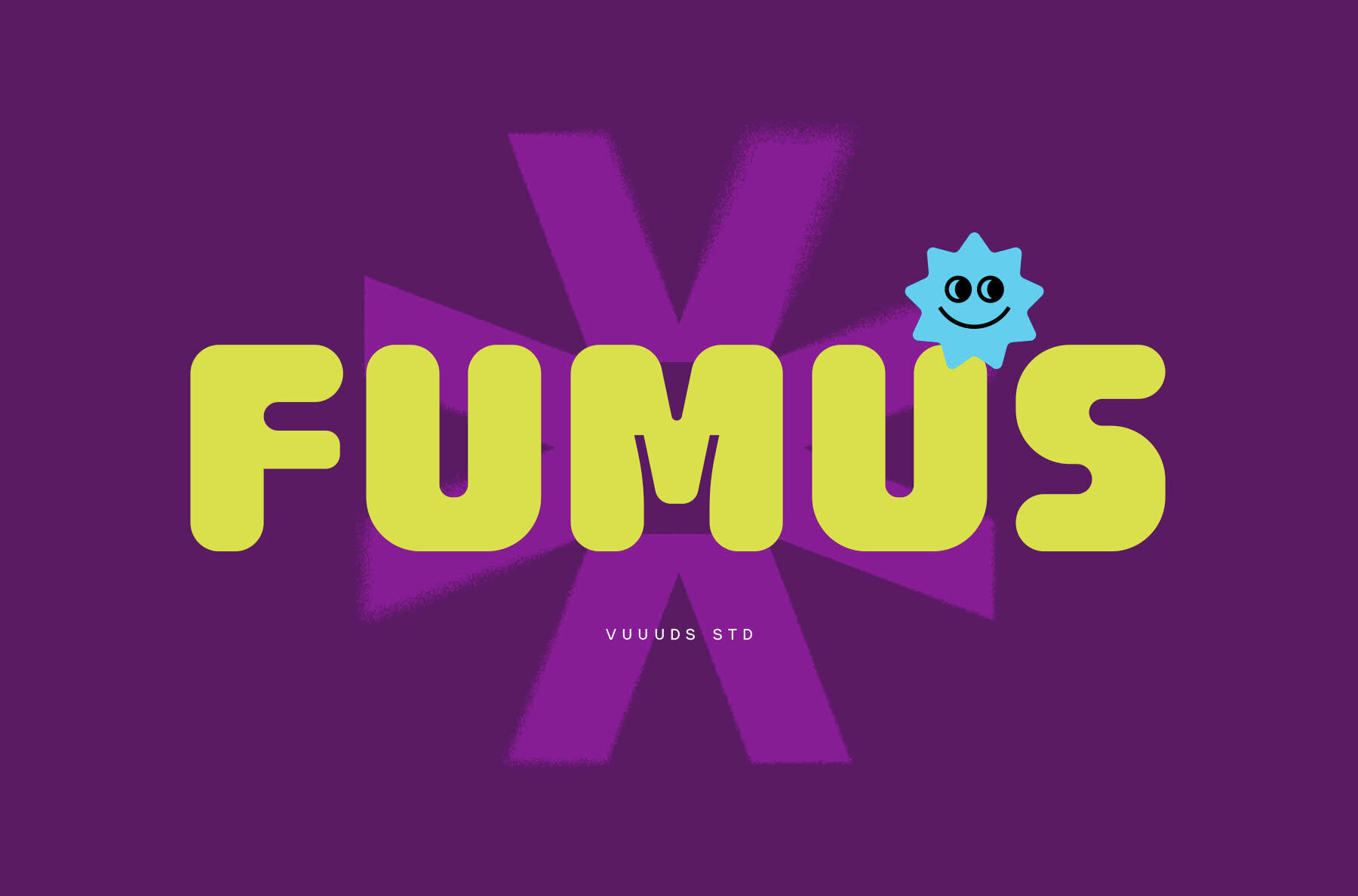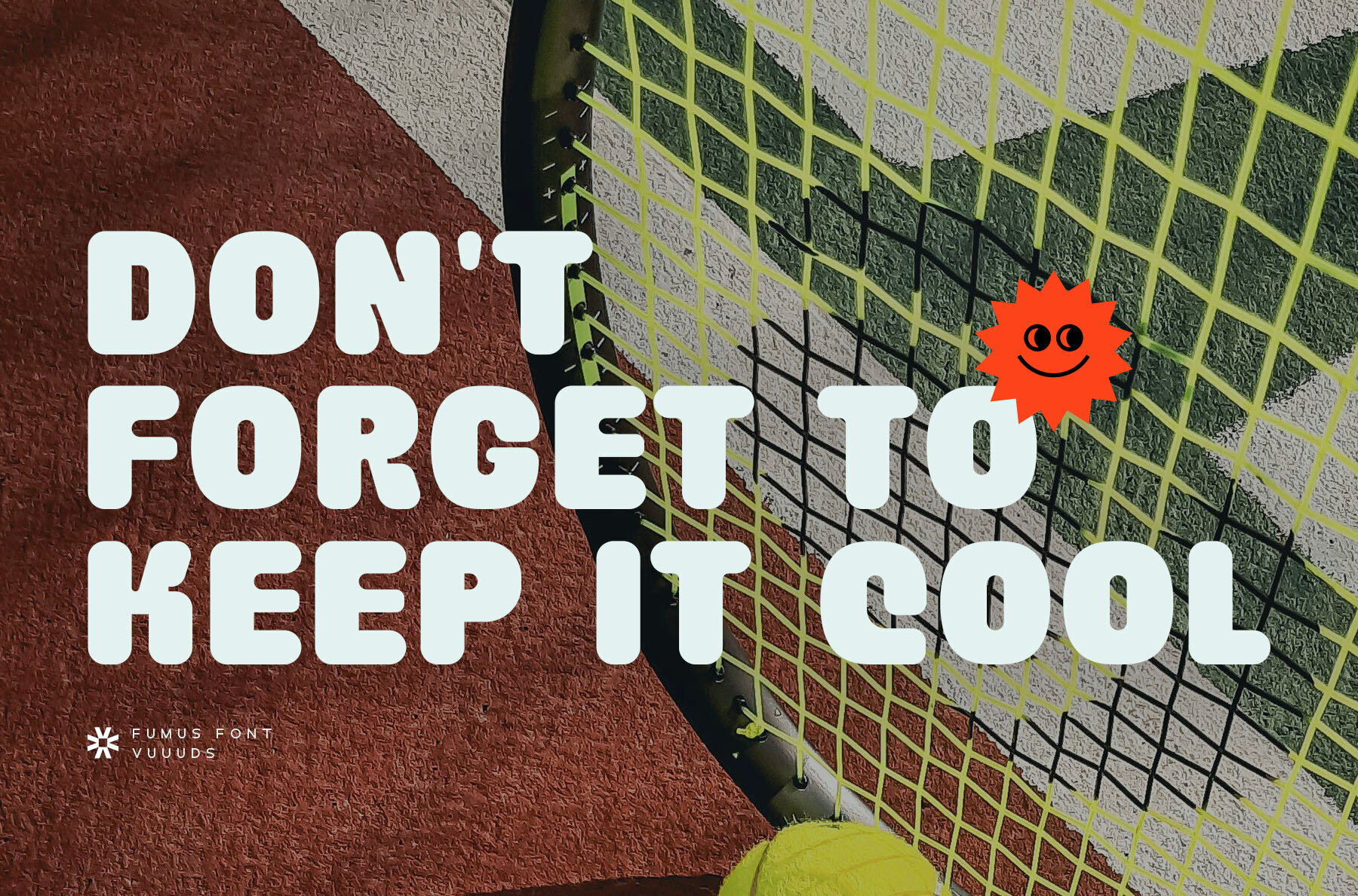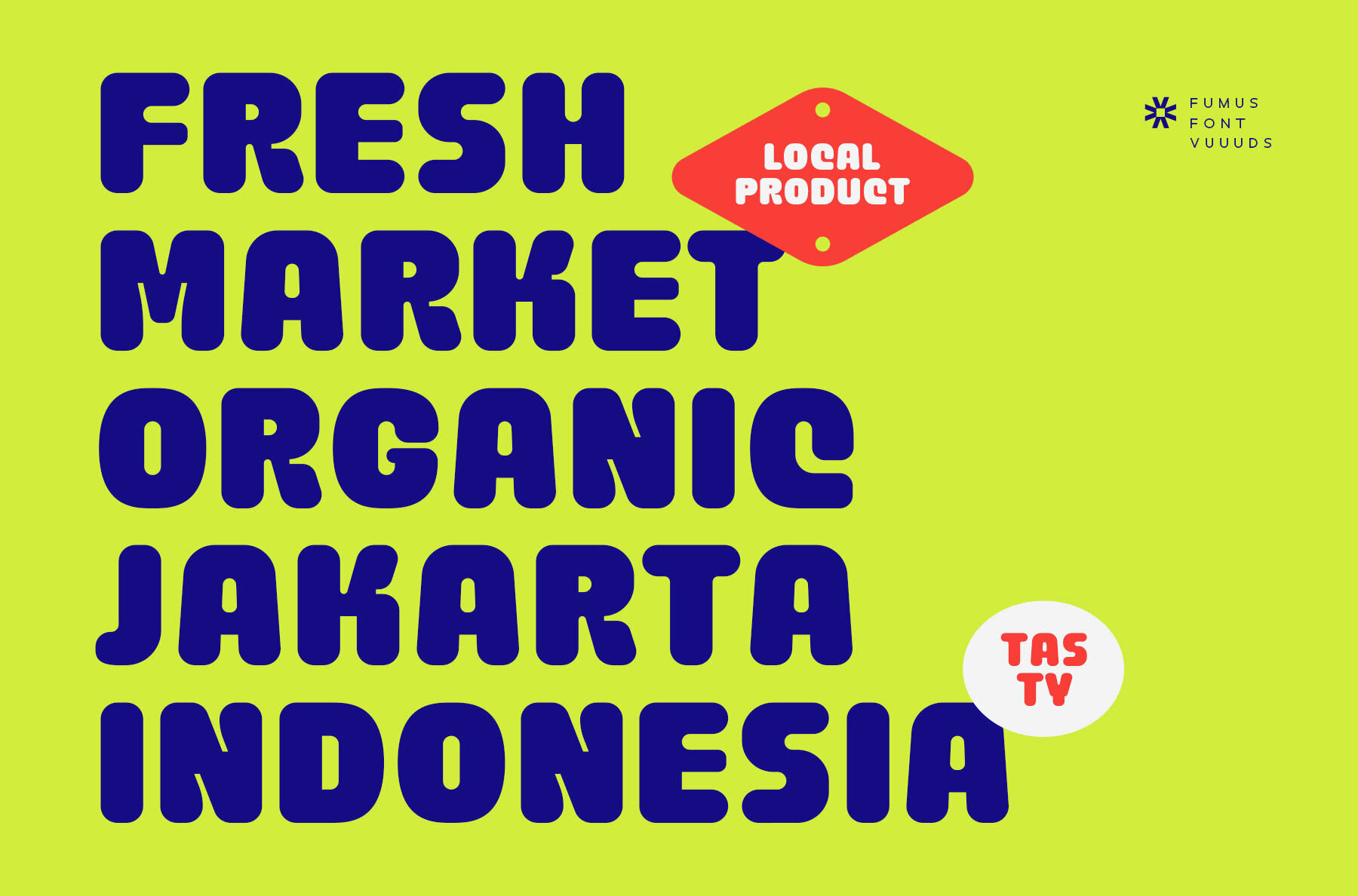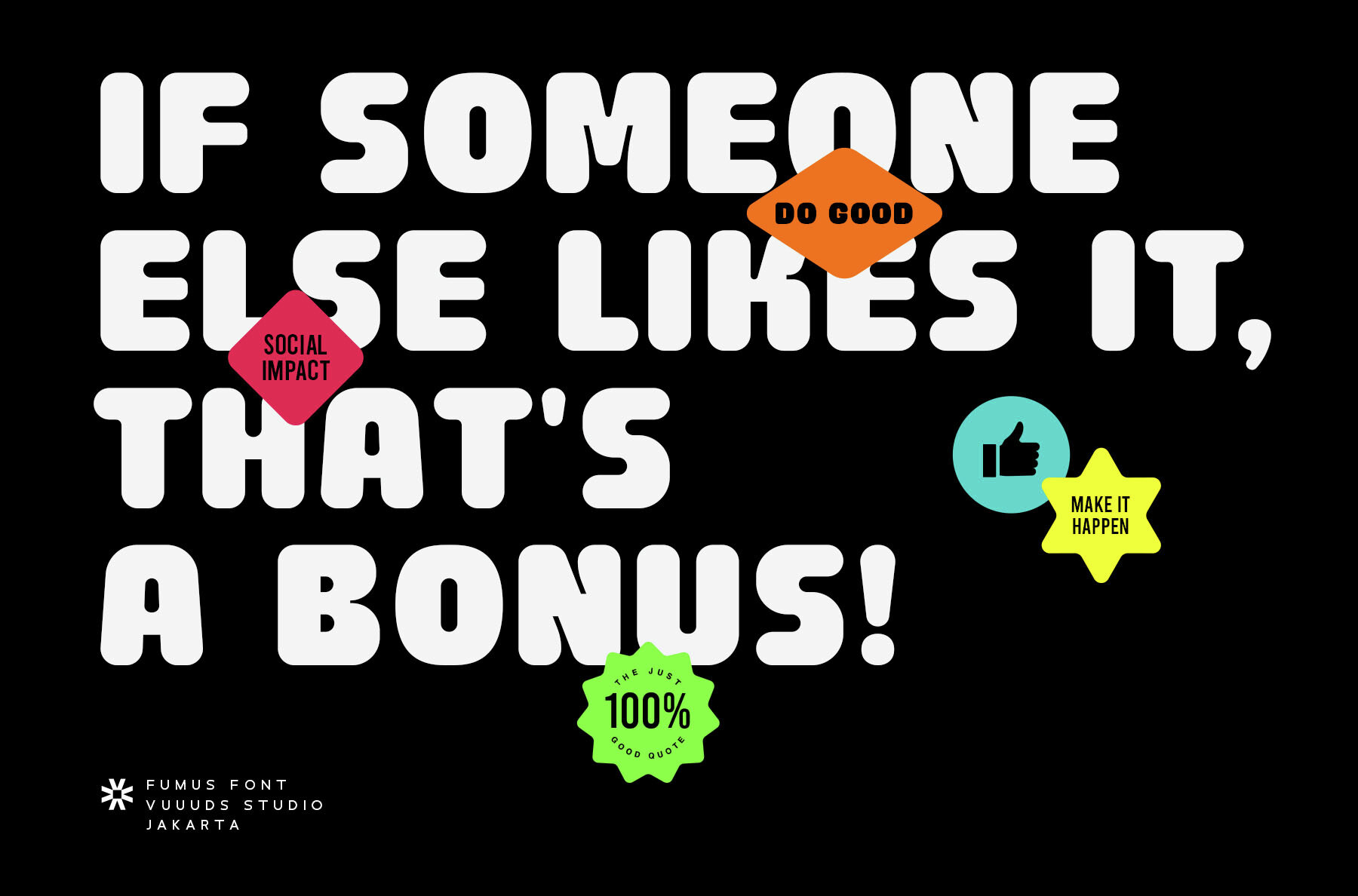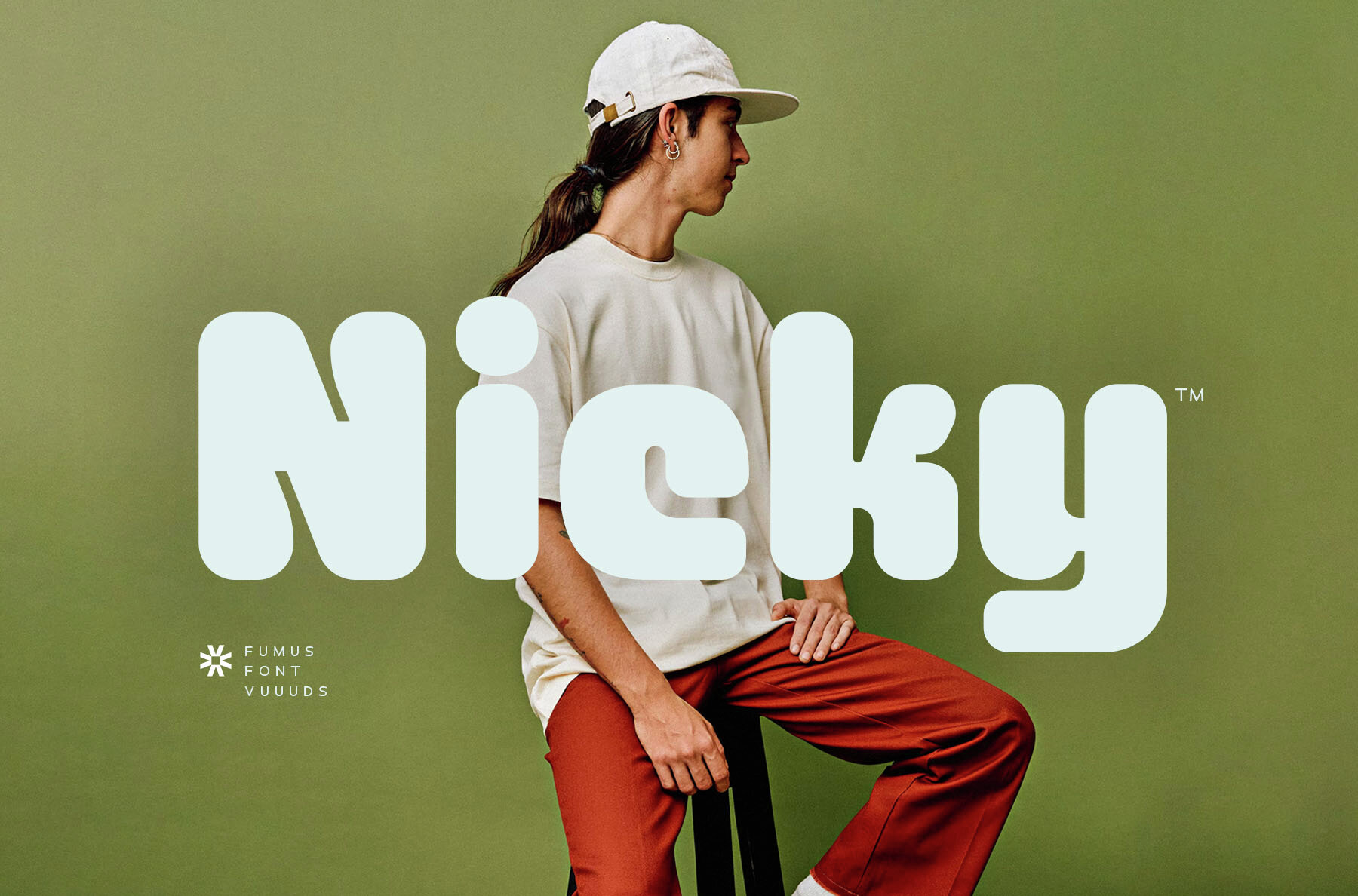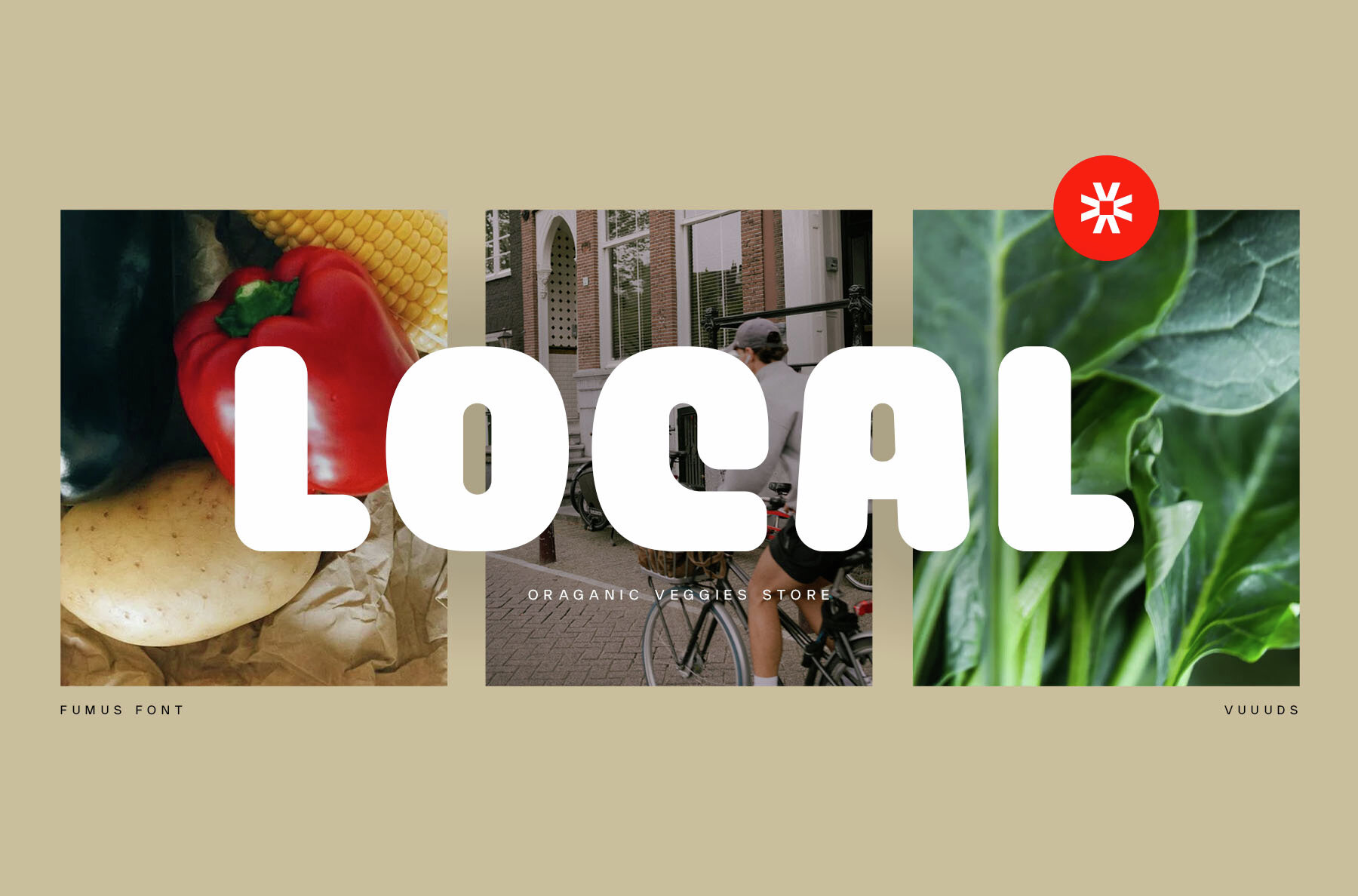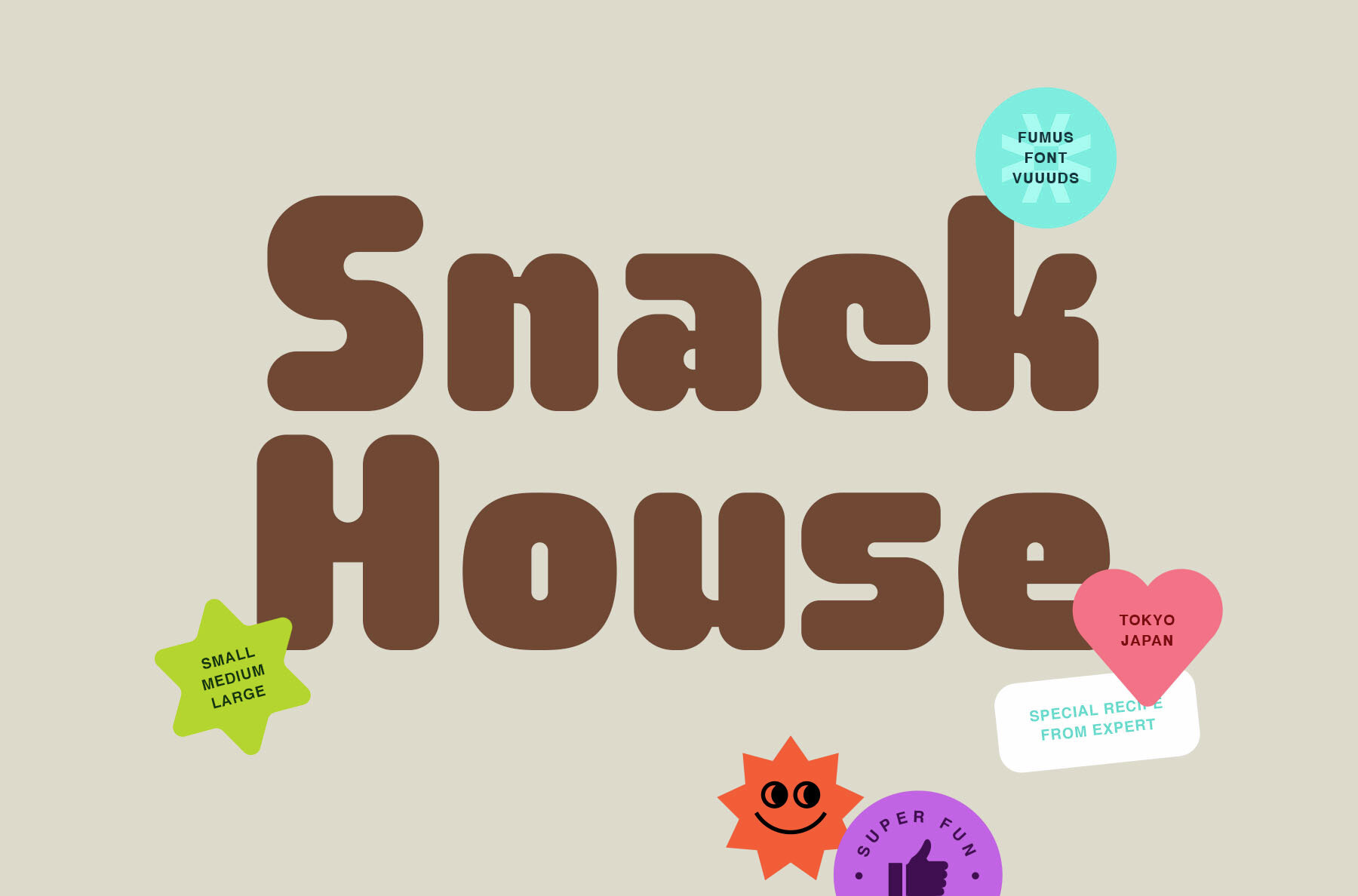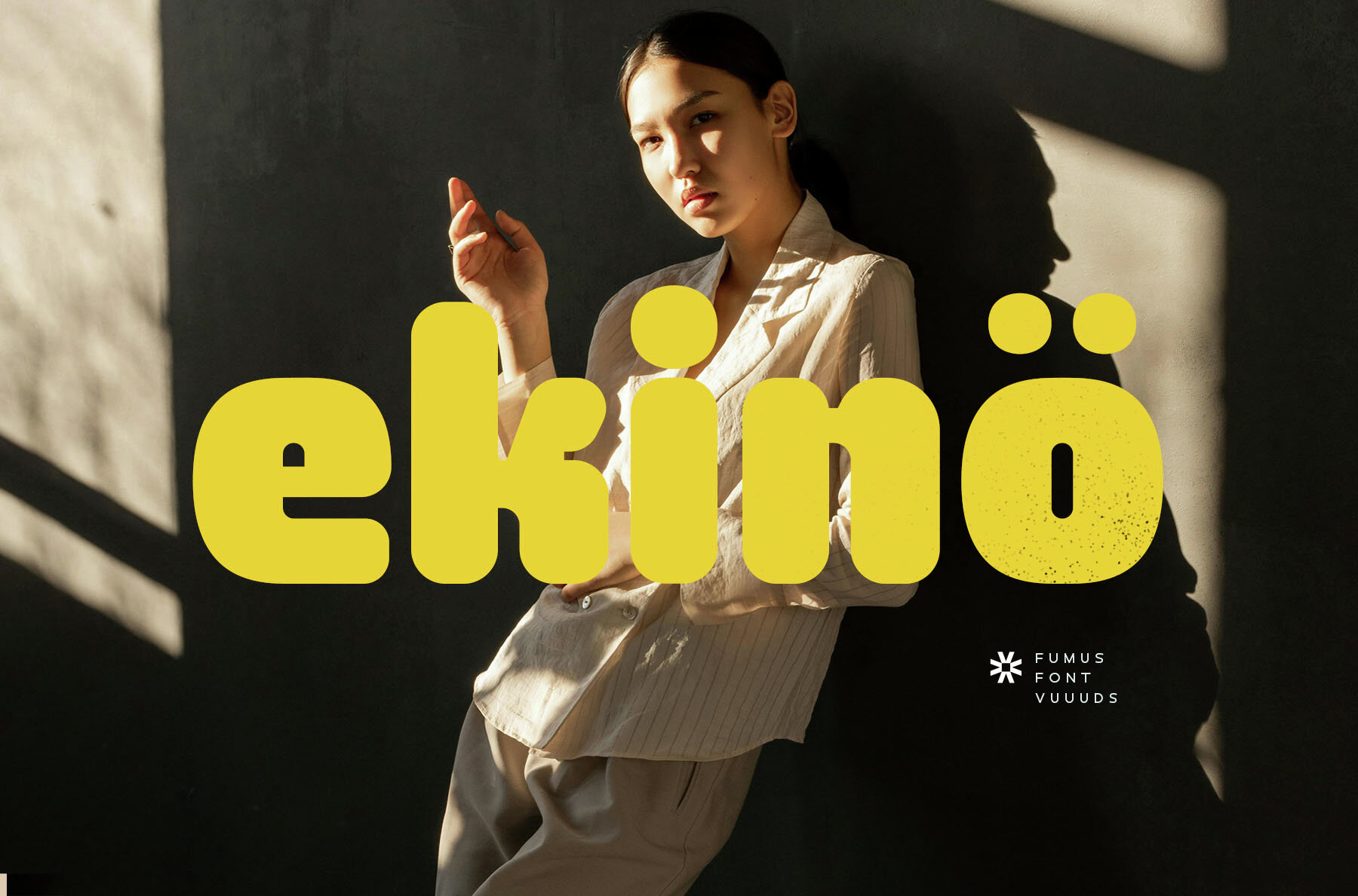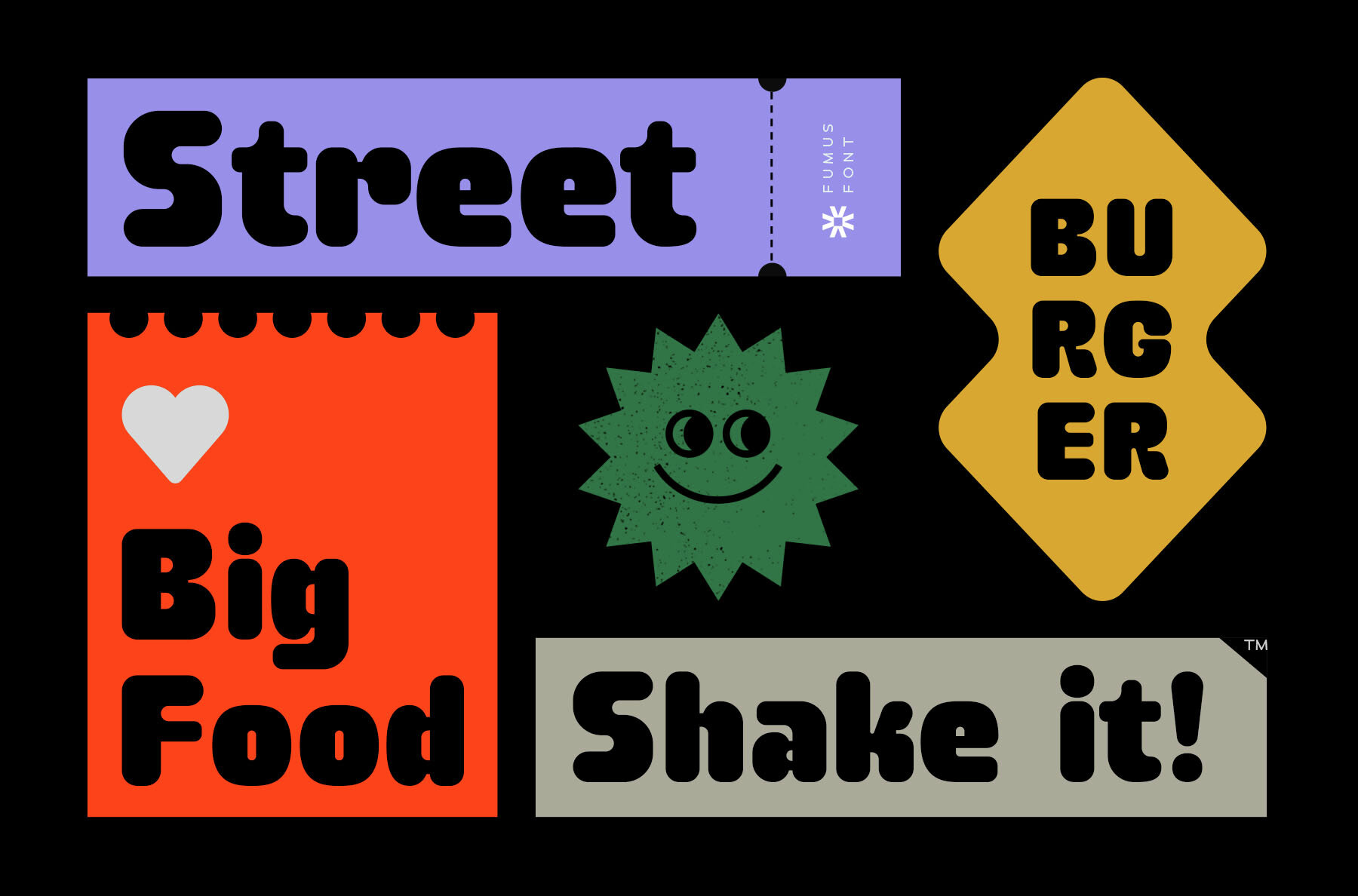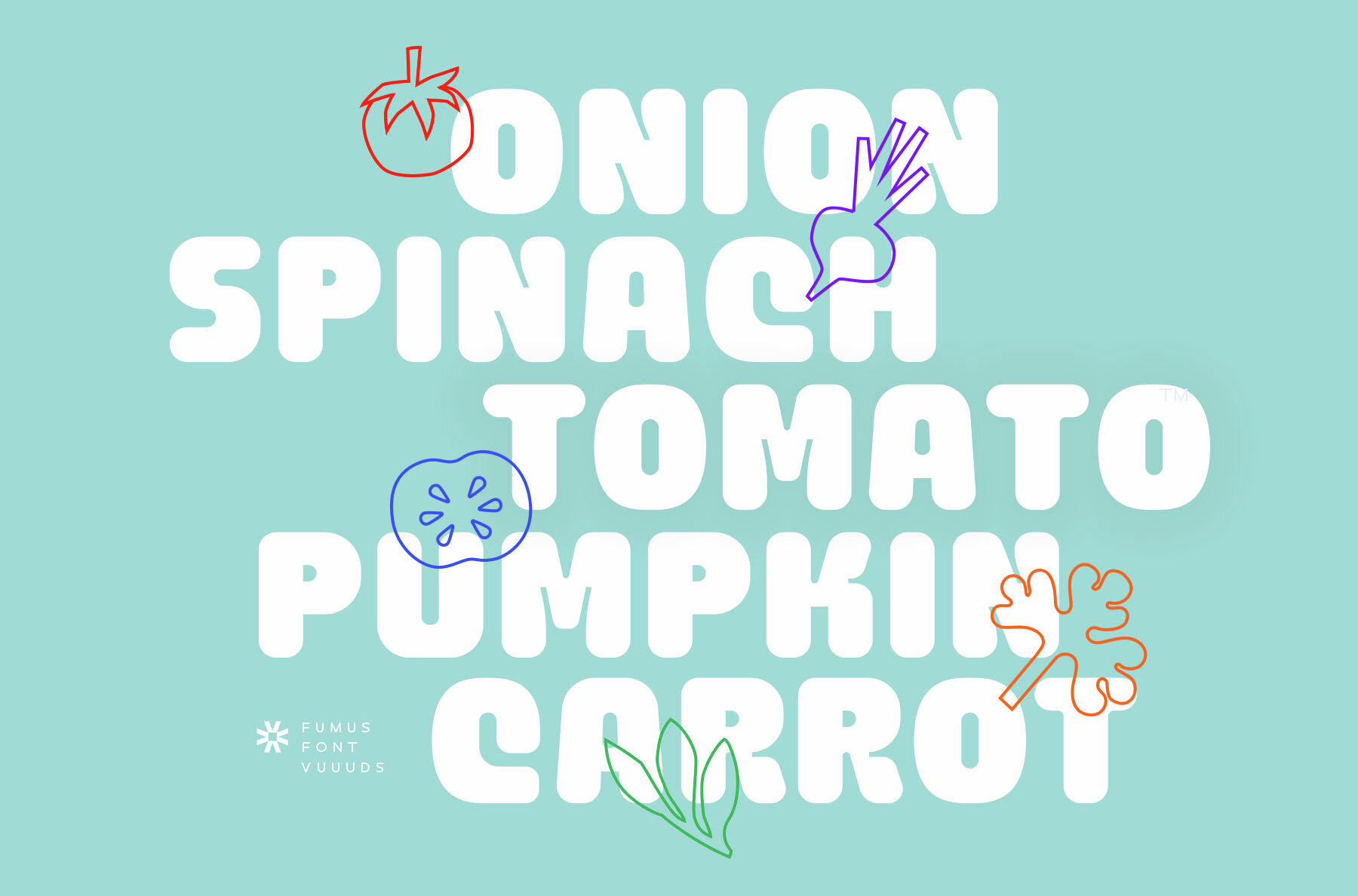
Fumus Font
Fumus
Fumus is a striking, modern experimental font with a super bold design that uniquely crafts each letter for maximum visual impact. This font is perfect for designers seeking to make a bold statement in their projects. It includes alternate glyphs that can be accessed effortlessly through Font Book on Mac or Windows Character Map on Windows. The innovative design of Fumus allows you to inject personality and creativity into any design, making it ideal for posters, headlines, and branding elements.
This versatile font also provides extensive foreign language support, accommodating a wide range of characters including accented vowels, special symbols, and various international alphabets. The inclusion of these elements ensures that your designs can reach a global audience while maintaining a consistent and cohesive style. Whether you are working on a digital project or print media, Fumus offers the perfect blend of uniqueness and functionality for graphic and digital designers seeking to push their creative boundaries.